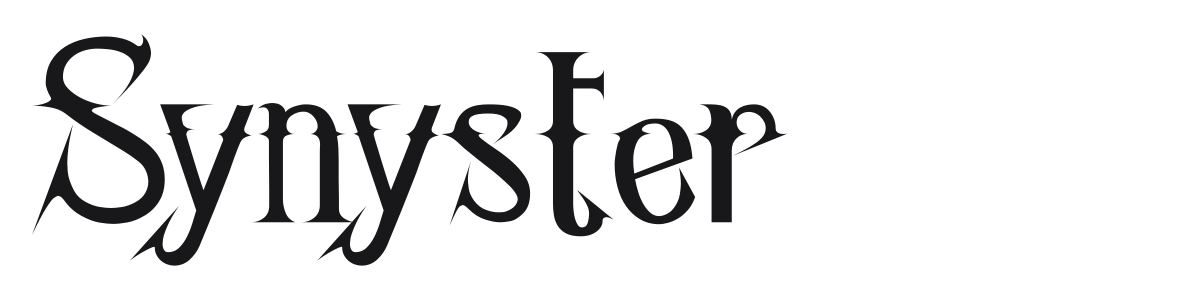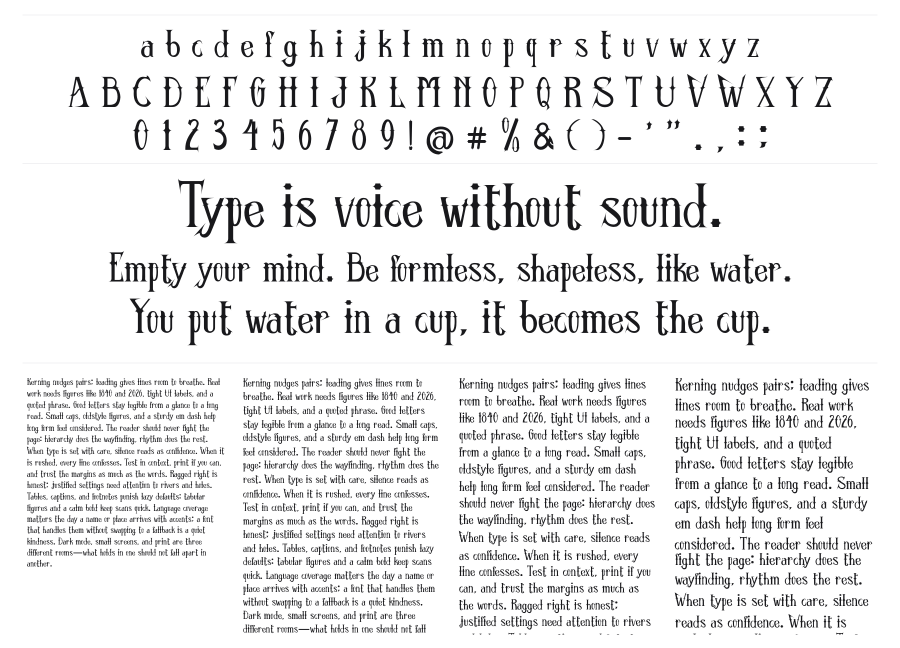
Synyster
Synyster is a bold gothic display font that fuses traditional blackletter structure with expressive, slightly irregular strokes and sharp pointed terminals. The result sits somewhere between medieval manuscript lettering and modern dark-style branding, with enough personality to feel fresh rather than archaic. It works across horror, metal, apparel, and lifestyle contexts where a heavy, dramatic presence is the whole point.